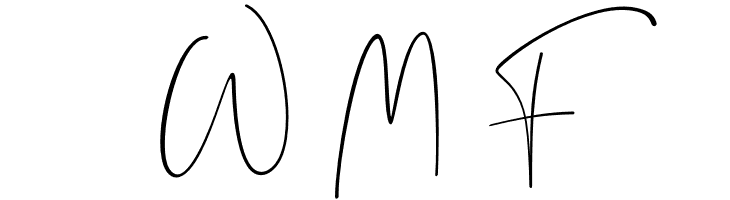
A bold, brushstroke-style font with a dynamic, hand-painted texture.
An elegant, flowing script font with smooth, cursive lines and graceful curves.
A playful, hand-drawn font with irregular strokes and a whimsical style.
A bold, hand-drawn font with textured, sketch-like characters.
A bold, distressed font with a textured, vintage appearance.
A decorative cursive font with elegant loops and swirls.
A bold, futuristic font with sharp angles and geometric design.
A bold, italicized font with a retro, arcade-inspired design.
A bold, geometric font with hollow interiors and a modern, digital aesthetic.
A bold, hollow, and futuristic font with a geometric and digital style.
A bold, retro arcade-inspired font with geometric and angular characters.
A bold, italic font with a retro arcade style and dynamic, angular design.
A bold, geometric font with a futuristic and edgy design.
A bold, angular font with a retro arcade aesthetic.
A pixelated, retro-style font with a digital, arcade-inspired design.
A bold, hand-painted style font with thick, uneven strokes.
An ornate script font with intricate swirls and flourishes, exuding elegance and sophistication.
A bold, decorative font with intricate details and high contrast.
A modern, geometric font with clean lines and a minimalist design.
A bold, edgy font with sharp, angular edges and a distressed look.
A bold, angular font with a distressed, edgy style.
A decorative, modern font with parallel line detailing and geometric structure.
A modern, narrow sans-serif font with a clean and professional look.
An elegant, flowing script font with a natural handwriting style.
A modern, elegant script font with flowing, cursive letters.
A playful and whimsical font with decorative curls and swirls.
A playful and decorative font with bold, rounded letterforms and unique curls.
A bold, brush-style handwritten font with dynamic strokes.